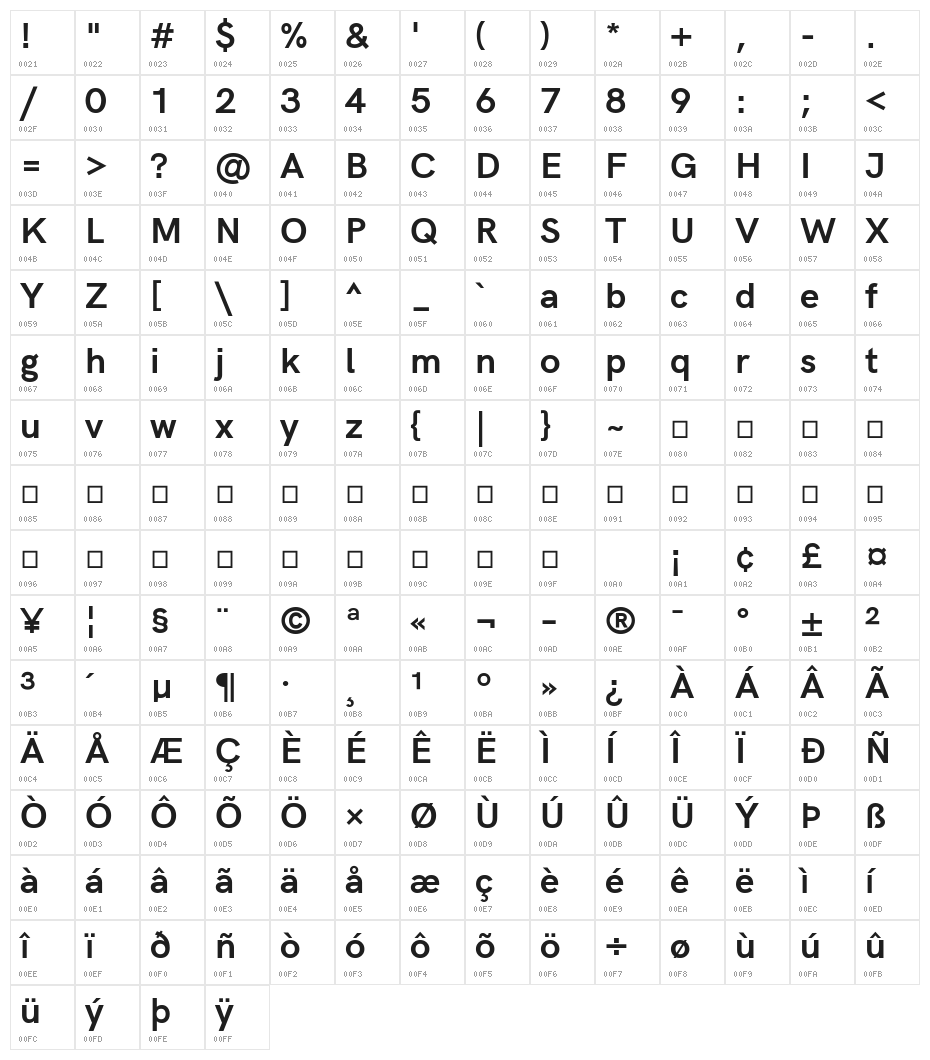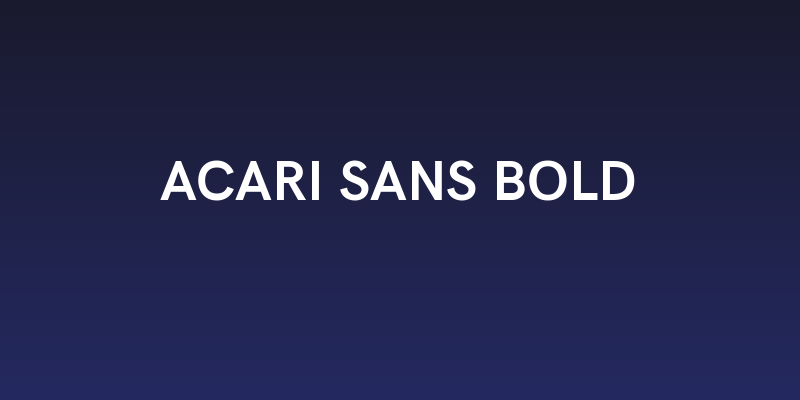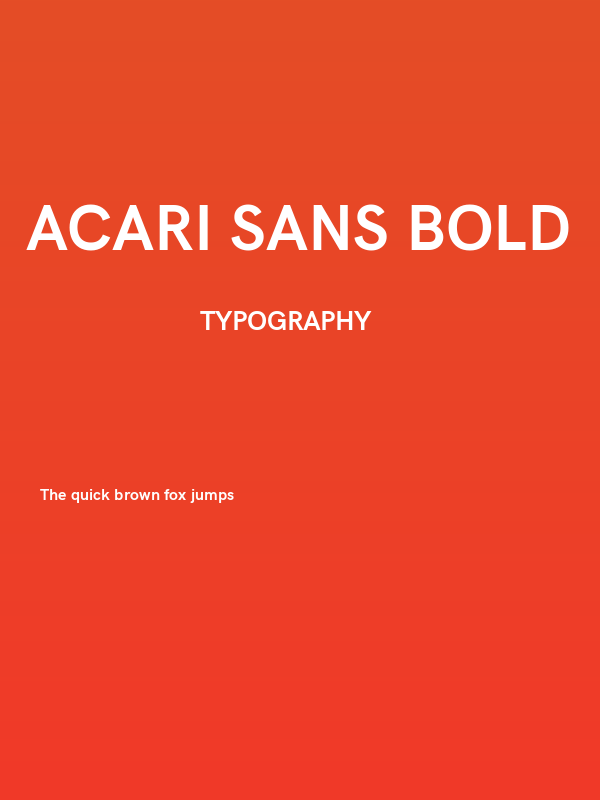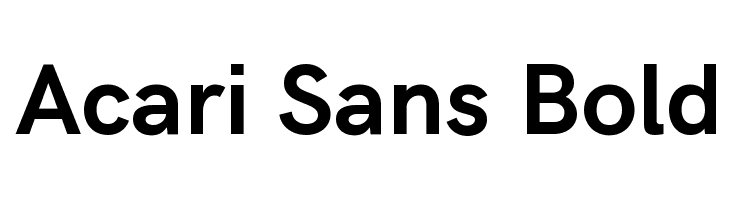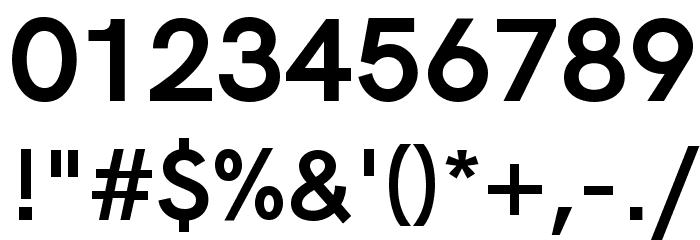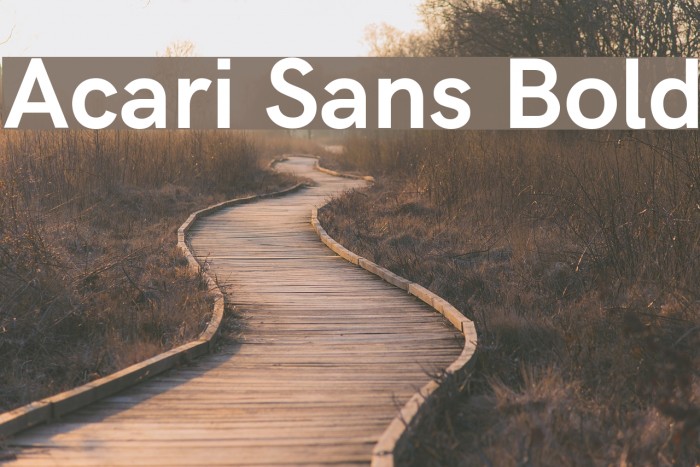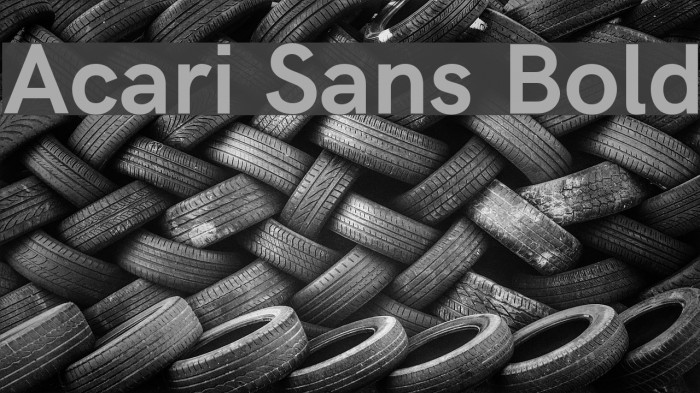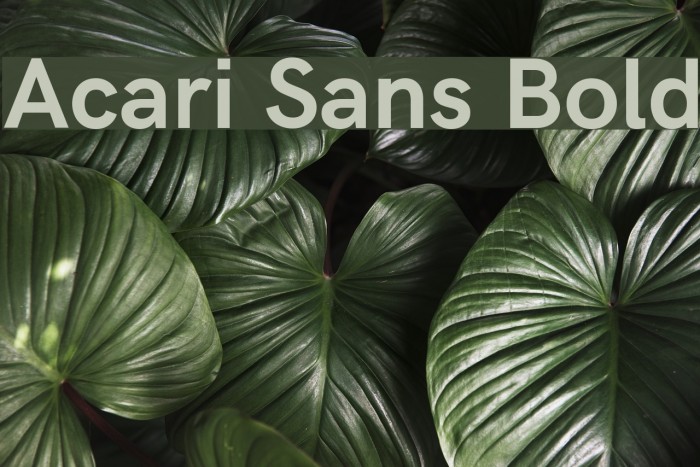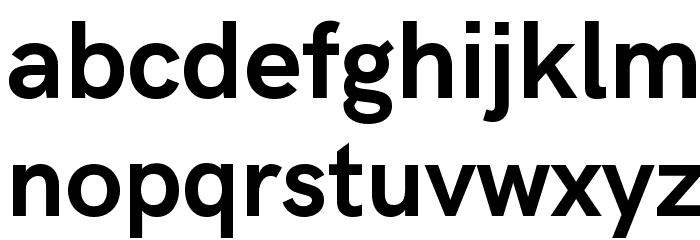
Acari Sans Bold Font
Acari Sans Bold Description
This font exhibits a clean and modern sans-serif style with bold weight, making it highly legible and impactful. The characters are well-proportioned with a consistent stroke width, contributing to its clarity and readability. The uppercase and lowercase letters maintain a uniform appearance, while the numerals are straightforward and easy to distinguish. Special characters are designed to complement the overall aesthetic, ensuring versatility across various applications. The font's simplicity and boldness make it suitable for both digital and print media, providing a professional and contemporary look.
| Use Case | Headlines, Logos, Digital interfaces |
| Proposed Projects | Ideal for branding, advertising, headlines, and digital interfaces where clarity and impact are essential. |